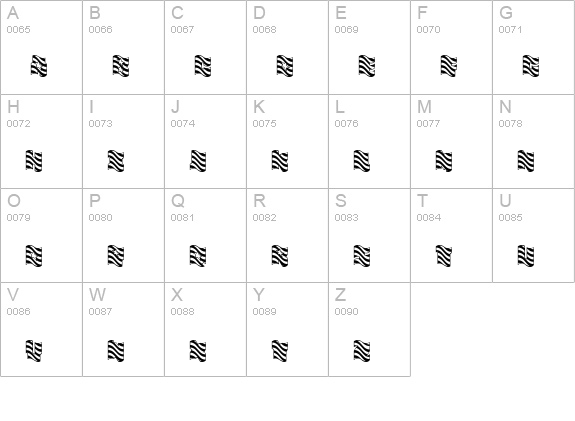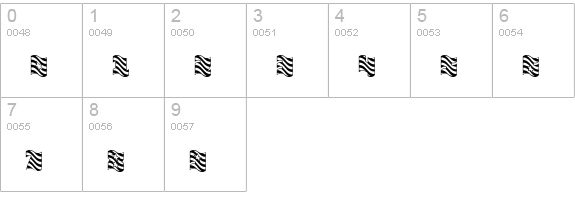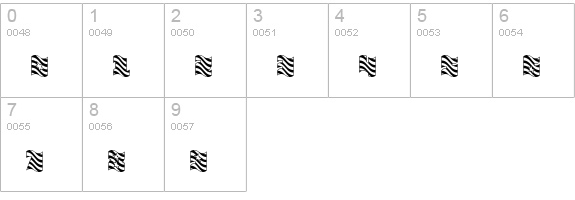
FlagDayThree Font Details
FlagDayThree font is a stunning display typeface that captures the essence of patriotism and celebration. With its bold and stylish design, this font is perfect for creating eye-catching headlines, posters, and banners. The unique characters and intricate details make FlagDayThree font a standout choice for any project that requires a touch of flair and elegance. What sets FlagDayThree font apart is that it is available for free download at FontsMarket.com. This means that you can easily access and use this versatile font in your designs without any cost. Whether you are designing for a special event or simply want to add a touch of sophistication to your graphics, FlagDayThree font is the perfect choice. Download it today and elevate your designs to the next level!